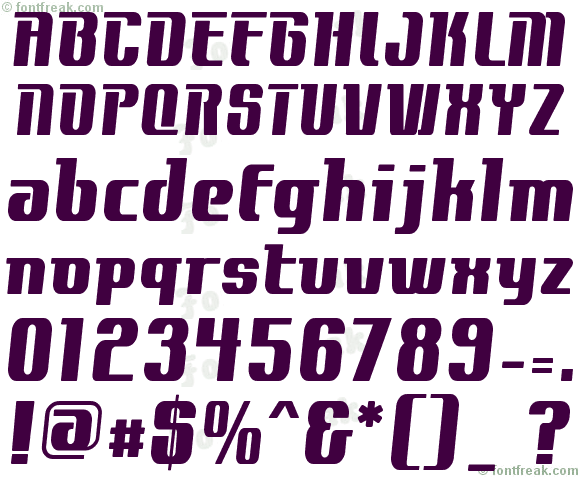
Contact Light
Contact Bold
Contact
Contact ExtraBold
About Contact
The Contact font by C-font is a striking display typeface that effortlessly combines a modern aesthetic with bold characteristics. This sans-serif font features a unique stroke weight that varies between thick and thin, creating an engaging visual rhythm. The letterforms exhibit a slight contrast, which adds dynamism to the overall appearance while maintaining excellent legibility. The spacing is well-balanced, making it suitable for both headlines and body text. The design showcases clean lines and a contemporary edge, perfect for a variety of creative projects.
The Contact font is particularly versatile, making it an excellent choice for use cases such as movie posters, where its boldness can capture attention; restaurant menus, where clarity and style are paramount; branding for small businesses seeking a modern identity; event invitations, where a strong impact is desired; and social media graphics, which require eye-catching typography to stand out.
What truly sets the Contact font apart is its ability to blend functionality with style. The font's bold yet refined design makes it a standout choice for anyone seeking to make a memorable impression. Whether you’re crafting a promotional flyer or designing a unique brand identity, the Contact font free download offers the perfect solution for your typographic needs. With its modern appeal and versatility, this typeface is sure to enhance any design project.